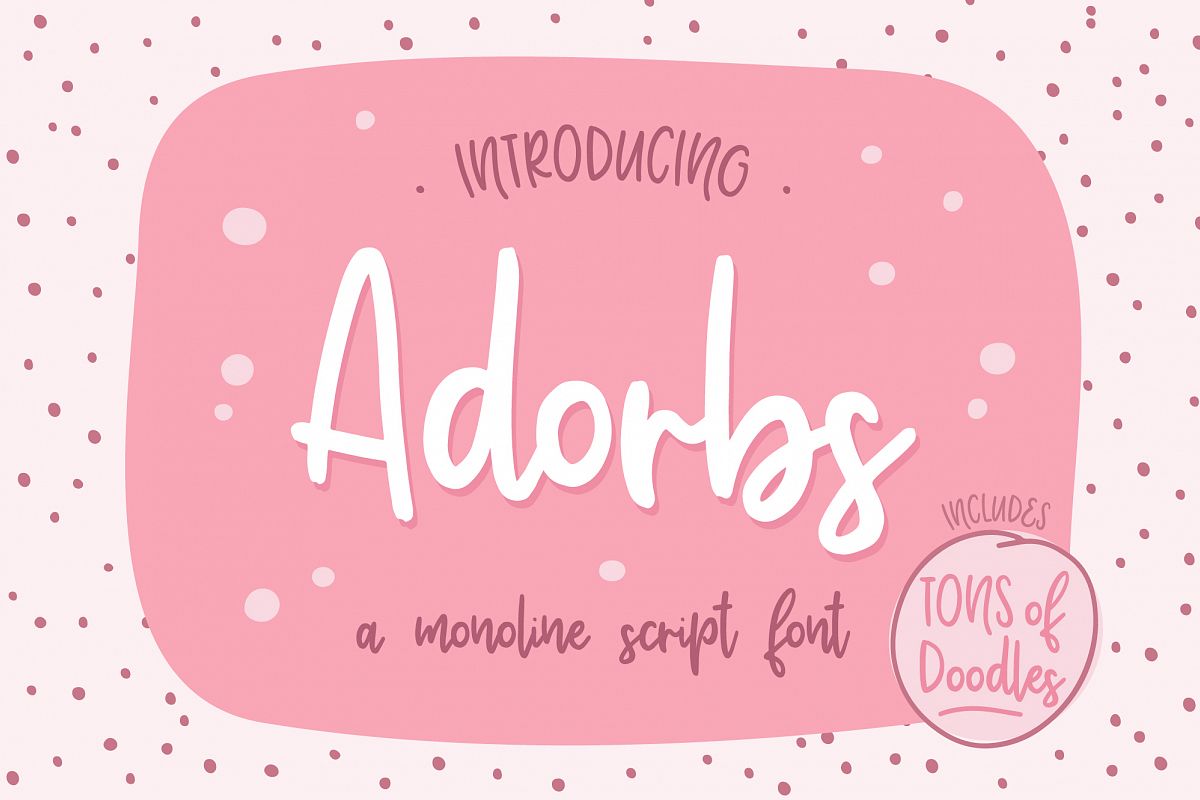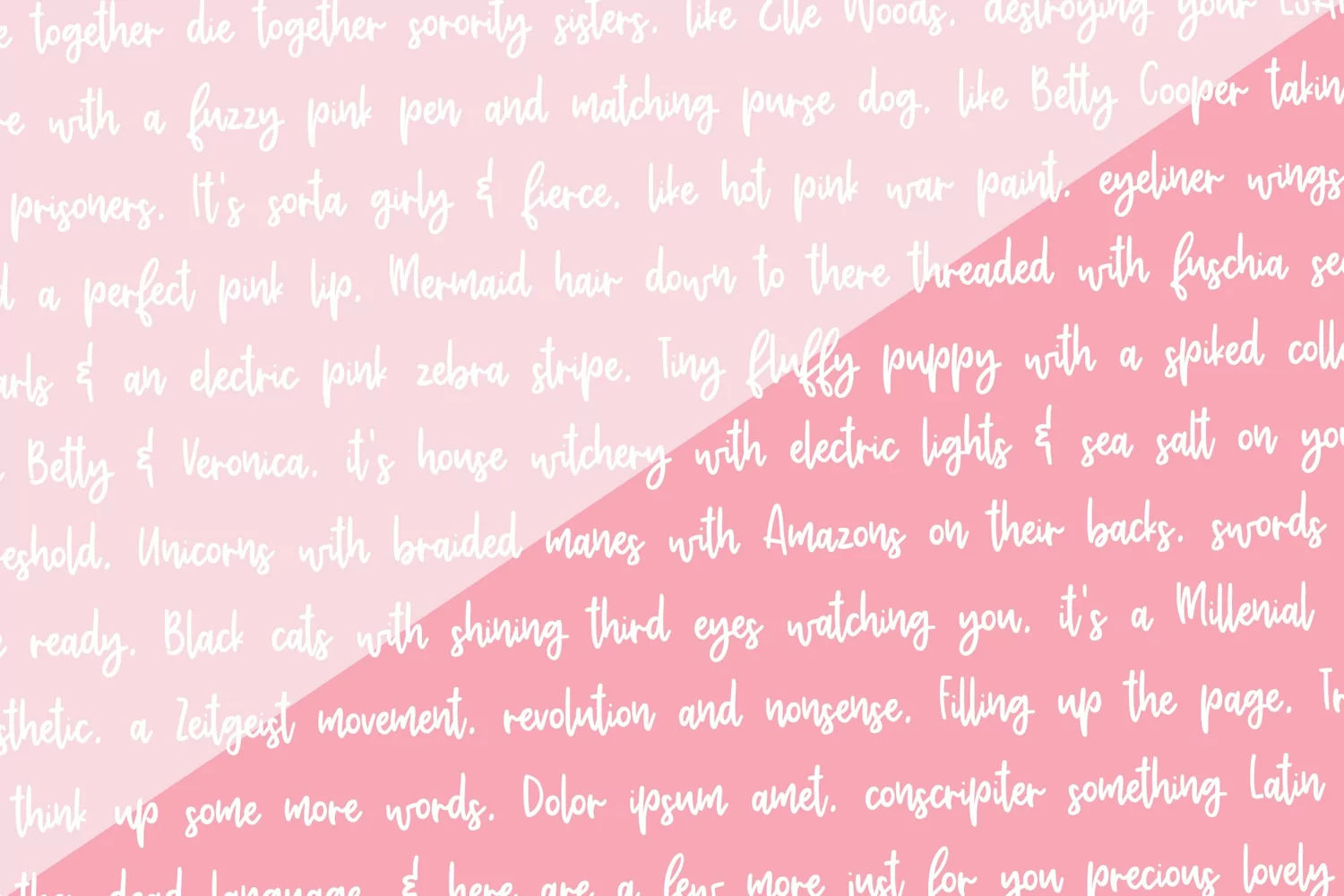
Adorbs, a monoline script font
Adorbs is a casual monoline script with a bouncy baseline and great curves. Adorbs is like a pair of fearsome ride-together-die-together sorority sisters. Kinda like Elle Woods, destroying your LSAT score with a fuzzy pink pen and matching purse dog. Peppy and happy, and take no prisoners. I have a lot of feels about this font. :)
Comes with a great big pile of doodles to dress up your typography designs.
TIP: Mix and match all caps with the lowercase.
TIP #2: Turn on OpenType features. Adorbs has a few ligatures you'll want to use.